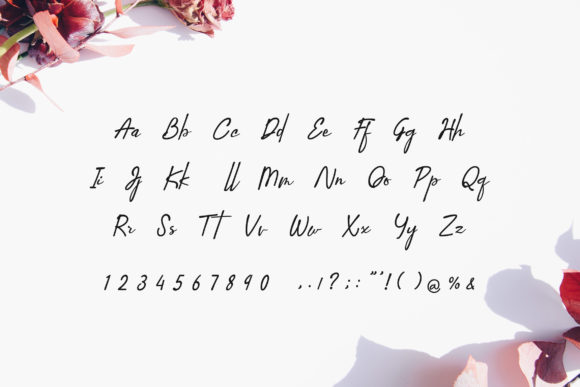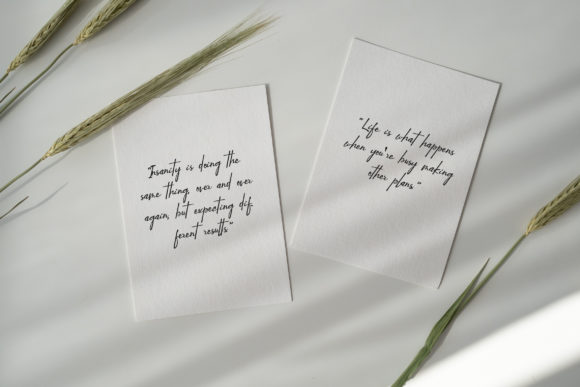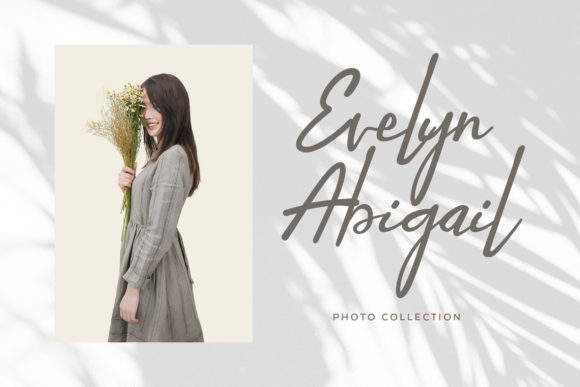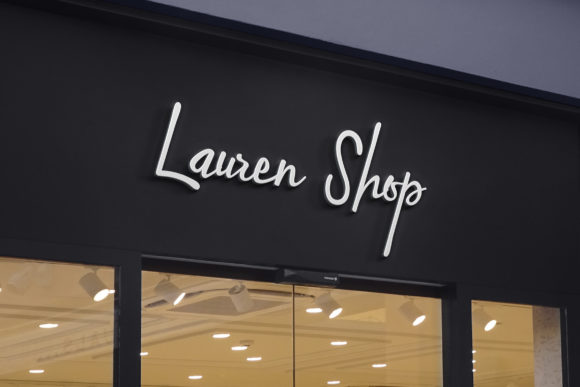
The Perfect Script Font for Your Next Creative Project
As designers, we’ve all been there – staring at a blank page, trying to find the perfect font to bring our vision to life. The search is over with the introduction of the stunning Anthoni Gristhea Font, a cursive script font that’s sure to elevate your designs.
This exquisite font is designed with smooth curves and a touch of elegance, making it perfect for fashion branding, editorial designs, or any project that requires a touch of sophistication. Whether you’re a seasoned designer or just starting out, the Anthoni Gristhea Font is a valuable addition to your toolkit, offering endless possibilities for creative expression.
Anthoni Gristhea Font Key Features
- Font Family: Anthoni Gristhea Font is a unique, hand-drawn font with a distressed, vintage feel.
- Character Set: The font includes a comprehensive character set, including uppercase and lowercase letters, numbers, punctuation marks, and special characters.
- Unique Characteristics: Anthoni Gristhea Font features a distressed, hand-drawn look with subtle imperfections, giving it a unique and eye-catching appearance.
Anthoni Gristhea Font Review
Overall, I’d say Anthoni Gristhea Font is a solid addition to any designer’s toolkit. Here’s what I think works well:
- ✨ Elegant and refined aesthetic, perfect for high-end branding and luxury products.
- ✨ Beautiful script and serif combinations, great for creating visually appealing text layouts.
- ✨ High-quality font files, suitable for a wide range of applications and devices.
- ⚠️ Limited font size range, may not be suitable for large-scale or small-scale text.
- ⚠️ Not ideal for use in bold or italic text, as it can lose its refined quality.
- ⚠️ May not be as versatile as other fonts in terms of language support and font styles.
Overall, I think Anthoni Gristhea Font is a great choice for designers looking to add a touch of sophistication and elegance to their projects. While it may have some limitations, its strengths make it a valuable addition to any font collection.